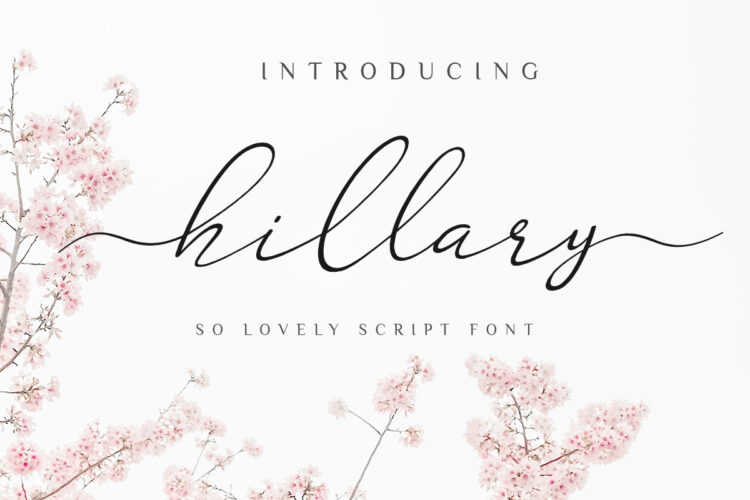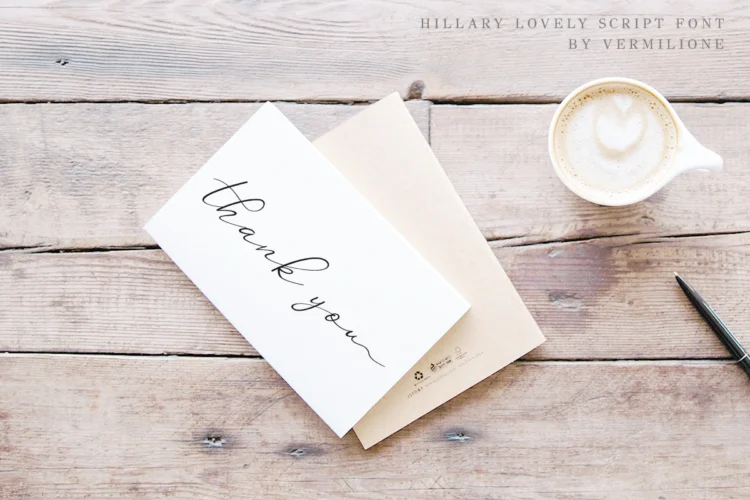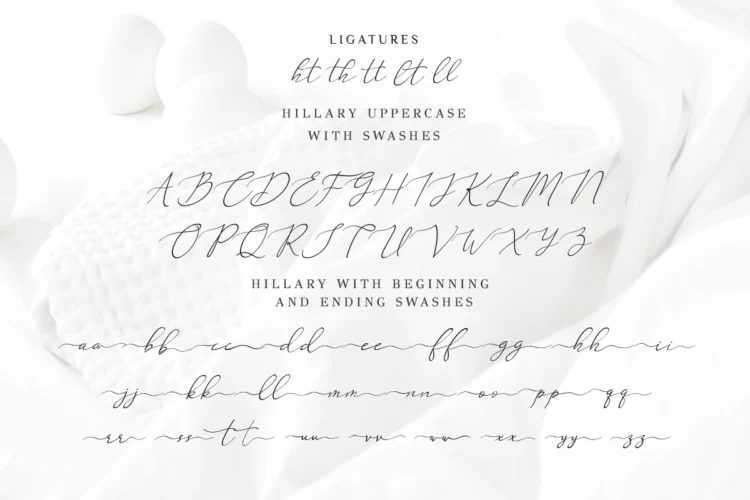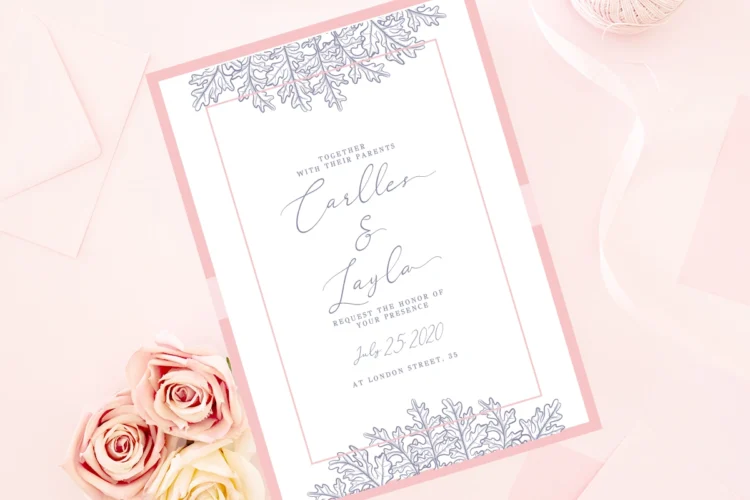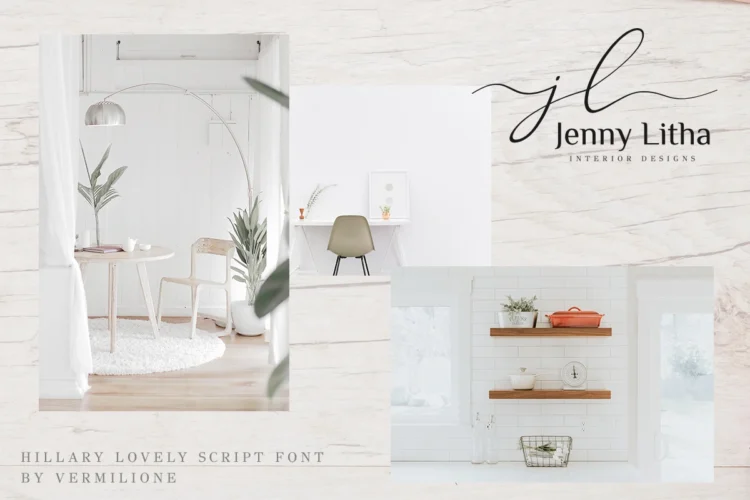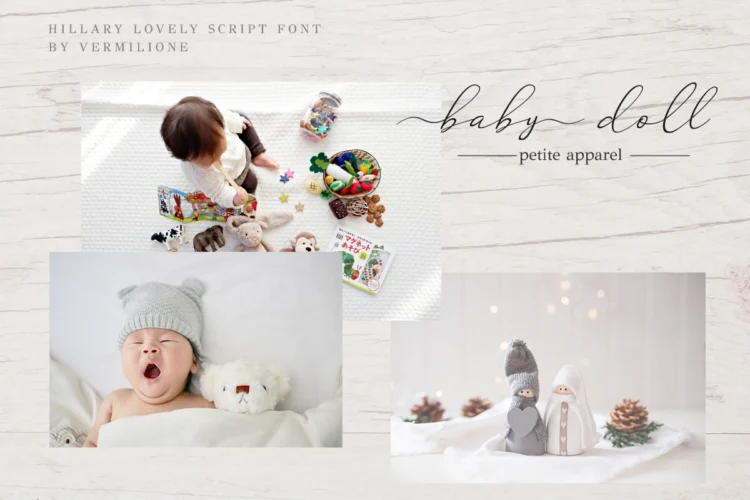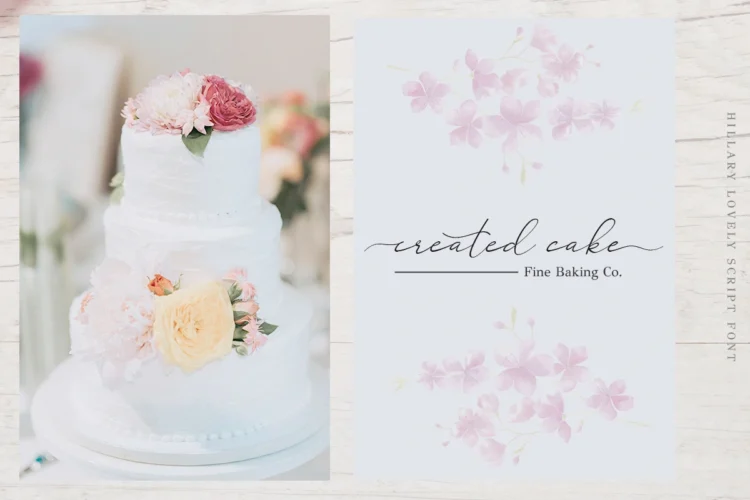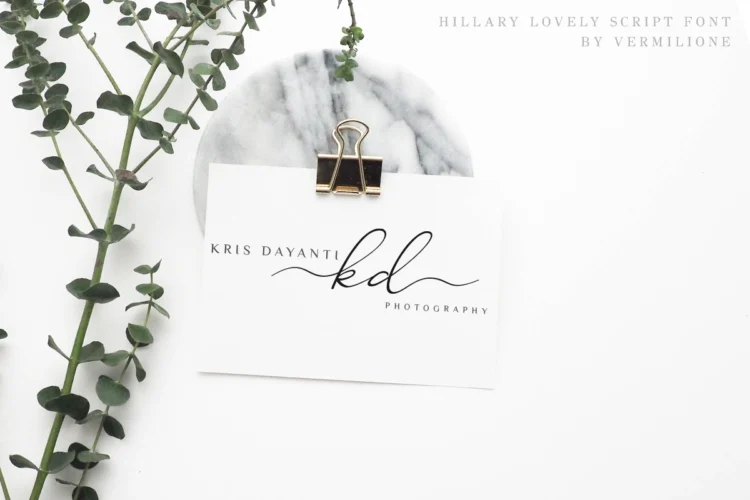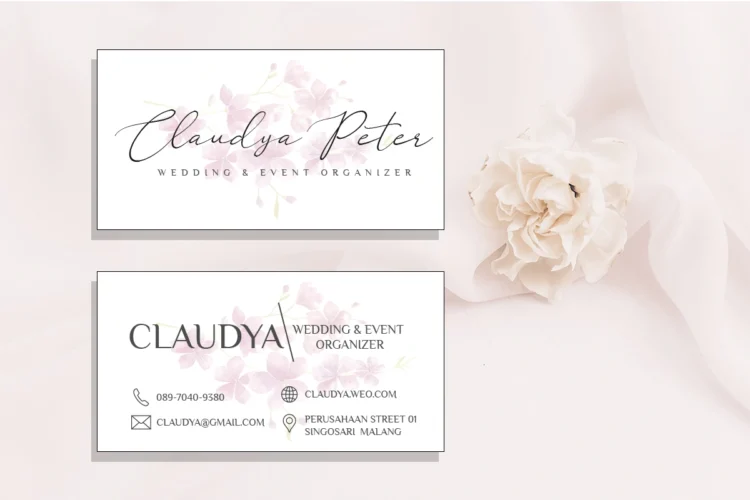
Hillary is modern calligraphy font with handwritten, sophisticated flows. It is full glyphs:). It is perfect for branding, wedding invites and cards.
“Hillary” includes full set of lovely uppercase and lowercase letters, multilingual symbols, numerals, punctuation and ligatures.Also it includes: -short lowercase & uppercase beginning and ending swashes , which serve to connect two words or letters (This is so perfect for invitations, monograms)
Following international symbols support: ÀÁÂÃÄÅĄÇĆÈÉÊËĘÌÍÎÏÐÑŃŁÒÓÔÕÖØÙÚÛÜŚŠŸÝŹŻŽßàáâãäåçèéêëìíîïðñòóôõöøùúûüýÿąćęłńśšźżž
The font has smooth texture, so would be perfect for all types of printing techniques+you can do embroidery, laser cut, gold foil etc.
The swashes are called alternative style. For example, letter “a” with beginning and ending swashes are alternative style for “a”. In order to access you need them you need to open Glyphs panel.